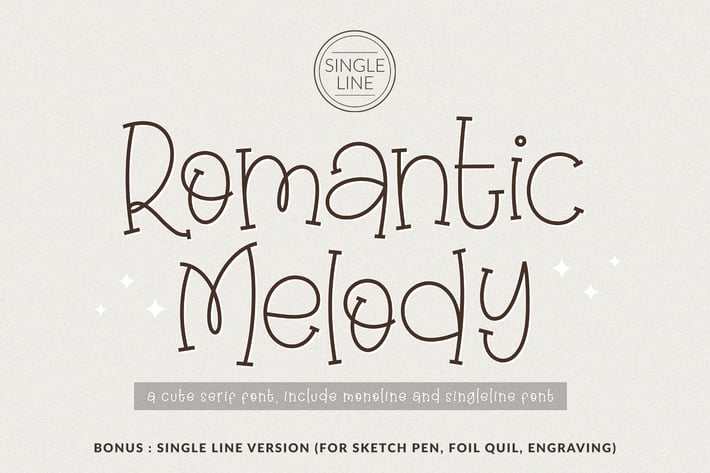
Romantic Melody - Singleline and Monoline font
Romantic Melody is a monoline cute serif font, described by a Love and cute touch with natural handwritten style, perfect for your favorite projects.
Fall in love with its incredibly distinct and timeless style and use it to create spectacular designs!
Romantic Melody Singleline version